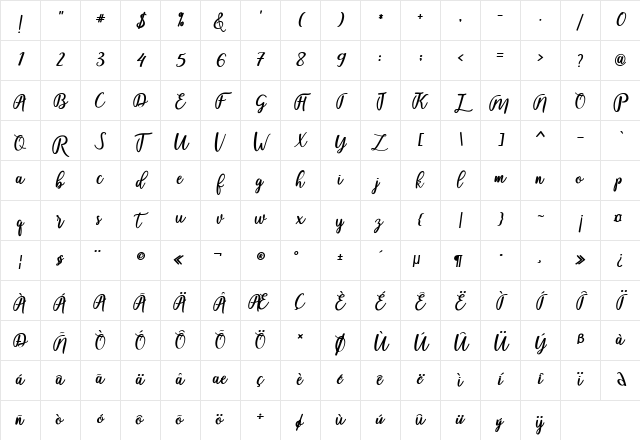
fadelya script
Style: script
Foundry: mrletters_muhammad rizal
Designer: mrletters_muhammad rizal
Design Context for fadelya
fadelya flows with the natural rhythm of handwritten lettering, making it ideal for designs that call for warmth and personal expression.
Font Pairing: Combine fadelya with a simple geometric sans for maximum contrast - the tension between flowing curves and clean structure is a classic typographic pairing.
Pro Tip: Use fadelya for short runs of text - names, titles, or taglines. Extended body copy in script faces tires the eye quickly.